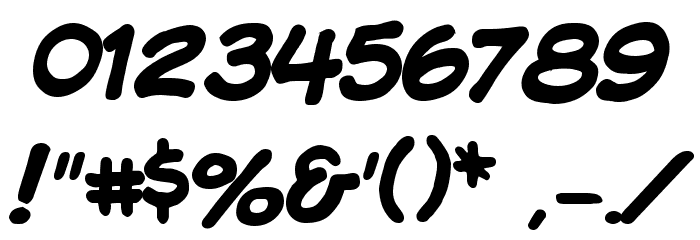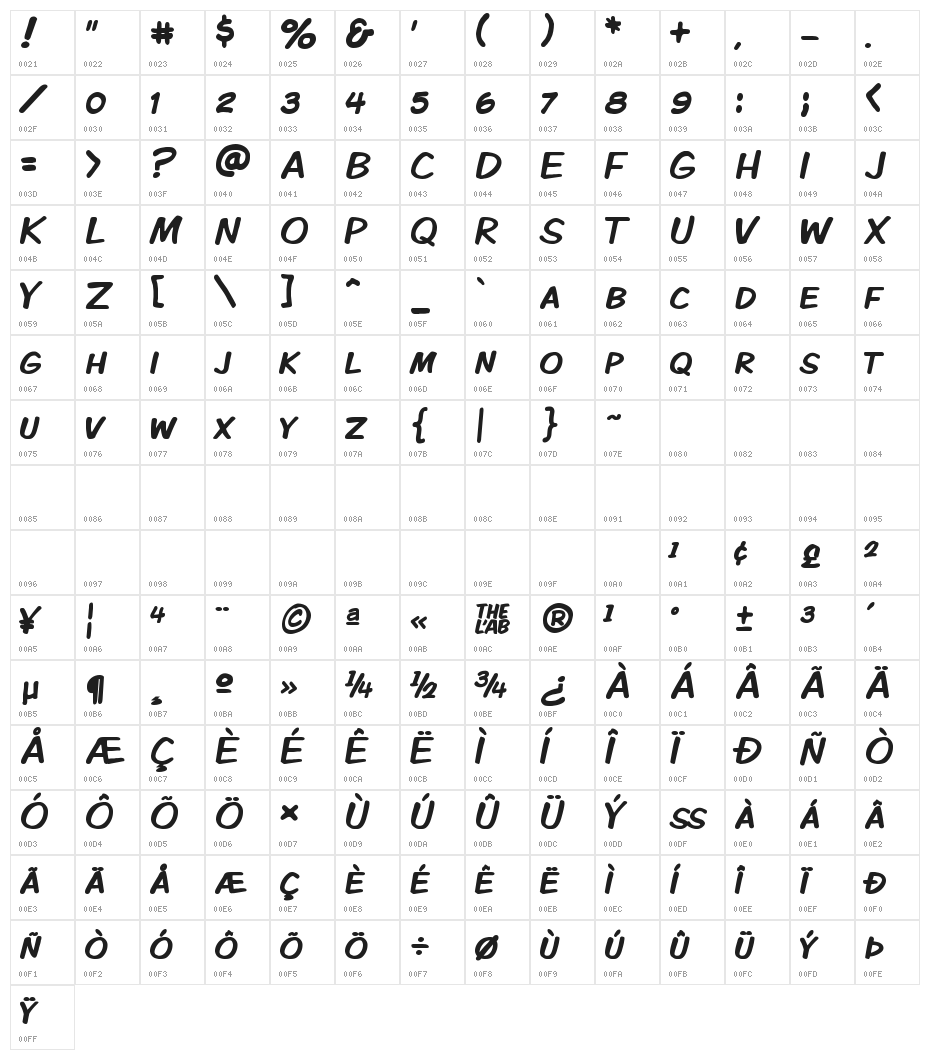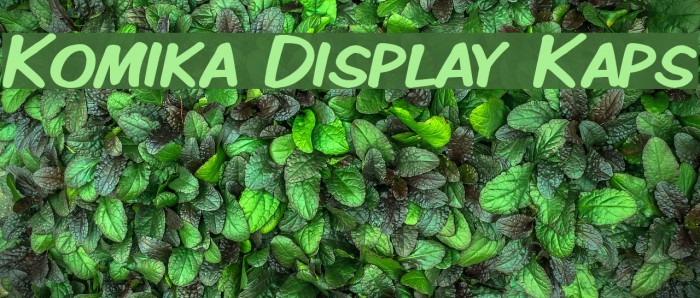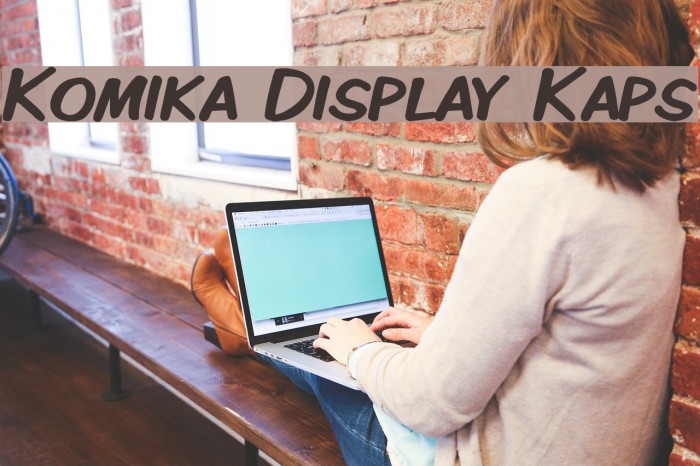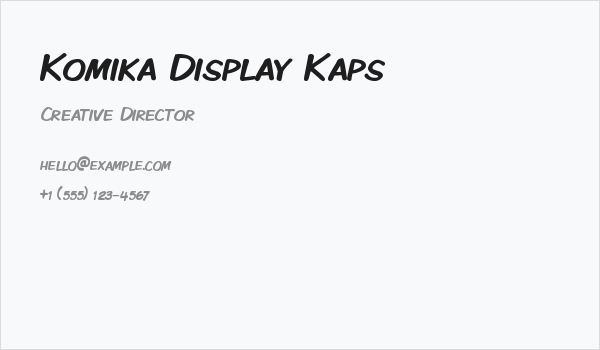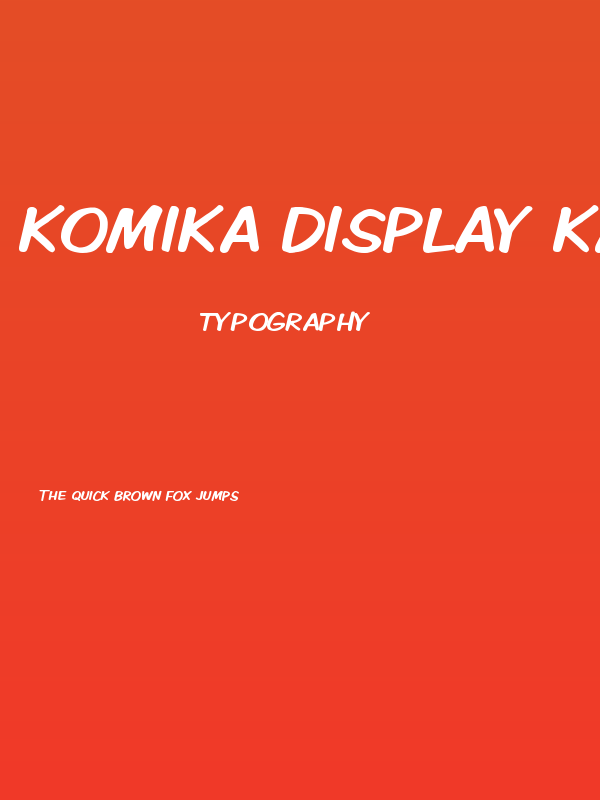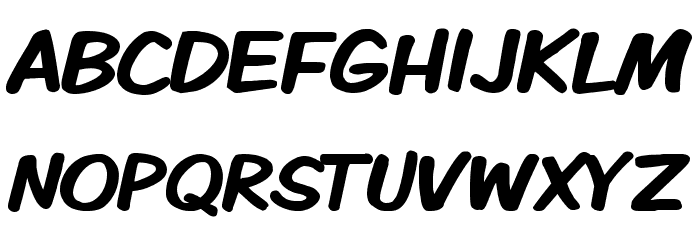
Komika Display Kaps Font
Komika Display Kaps Description
This font features bold, rounded characters with a playful and comic-like appearance. The letters are slightly slanted, giving a dynamic and energetic feel. The strokes are thick and consistent, providing a strong presence on the page. The numbers and special characters maintain the same playful style, making it suitable for informal and fun designs. The overall look is casual and approachable, perfect for projects that require a friendly and engaging tone.
| Overall Style | Playful, Comic |
| Proposed Projects | Ideal for comic books, children's books, playful branding, and informal posters. |